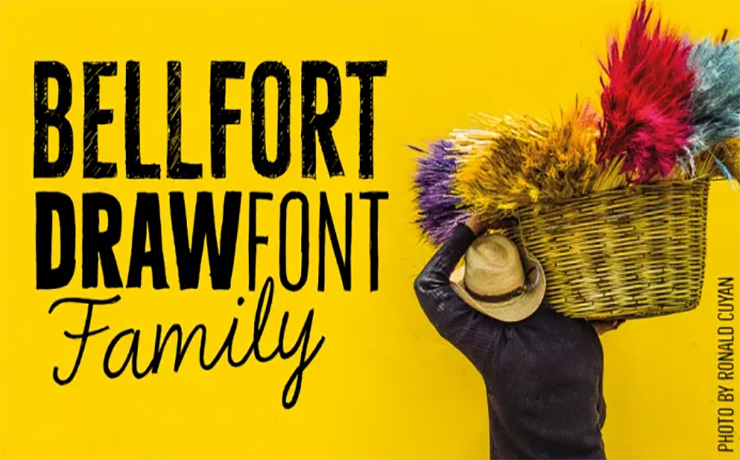
Bellfort Font is a big premium script typeface that also features a letter design inspired by handwriting styles. The vintage-themed design of the typeface will also fit perfectly with the logo design.
This handwritten typeface was designed by Bartek Nowak and published by GRIN3 (Nowak).
This is a natural handwritten typeface because all the characters are handmade. But they are all made with thick strokes, so it is possible that the designer used markers to draw lines.
Another best part of this font is that sometimes the designer needs a stylish font for the tagline or to add a stylish touch to the design. Therefore, it can also work perfectly.
Font Name: | Bellfort Font Family |
Style: | Script, Various, Display |
Font Designer: | Bartek Nowak |
It is an eye-catching typeface that attracts the attention of the viewers as it has many beautiful glyphs and characters.
Ideal for making business cards, greeting cards, and even logos for various businesses, brands, product designs, product packaging, game graphics, special event cards, t-shirt printing, etc.
This font pack comprises 5 different sub-families: Regular, Rough, Hollow, Dark, Script. Each of these sub-families contains up to three font weights.